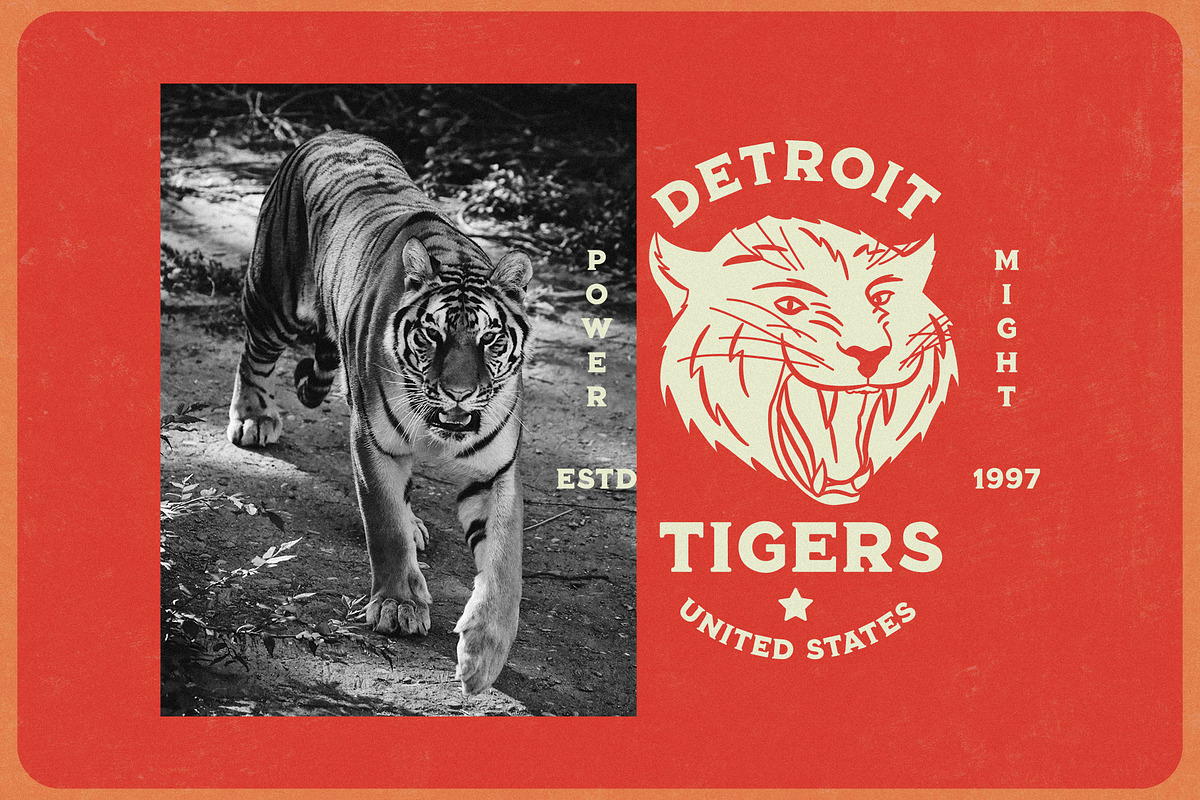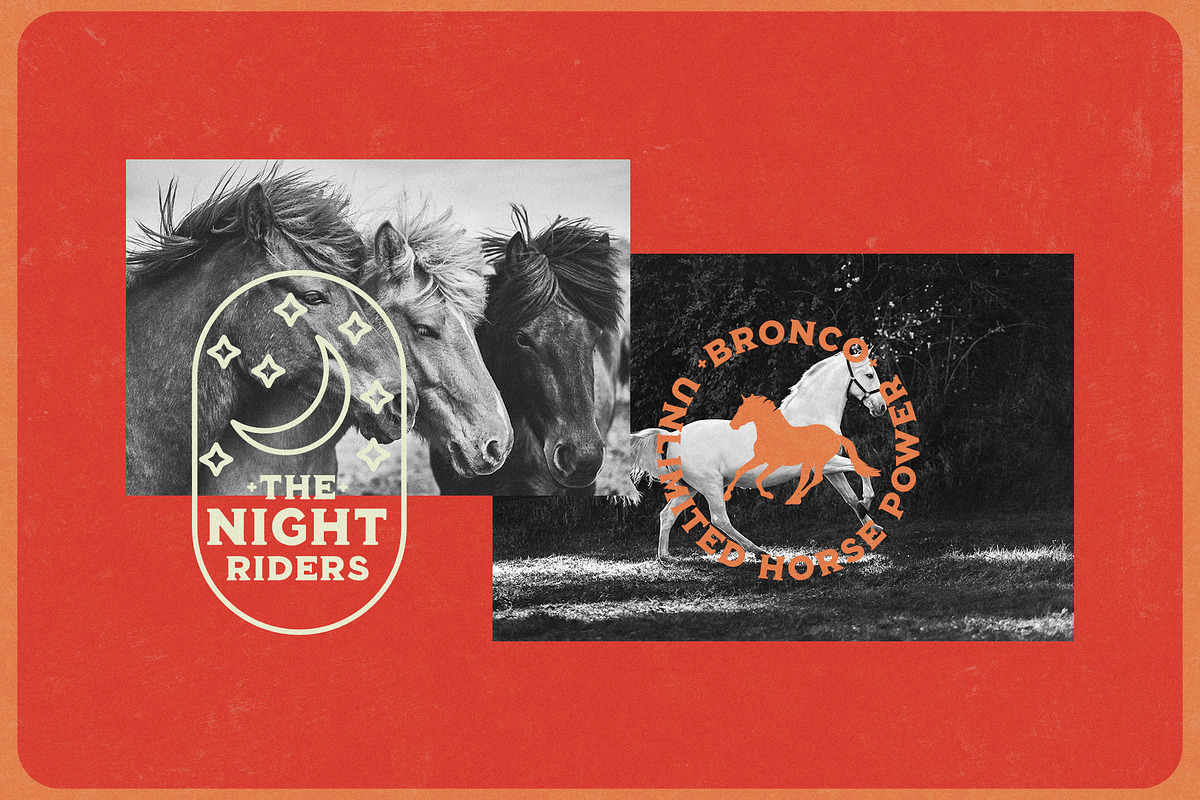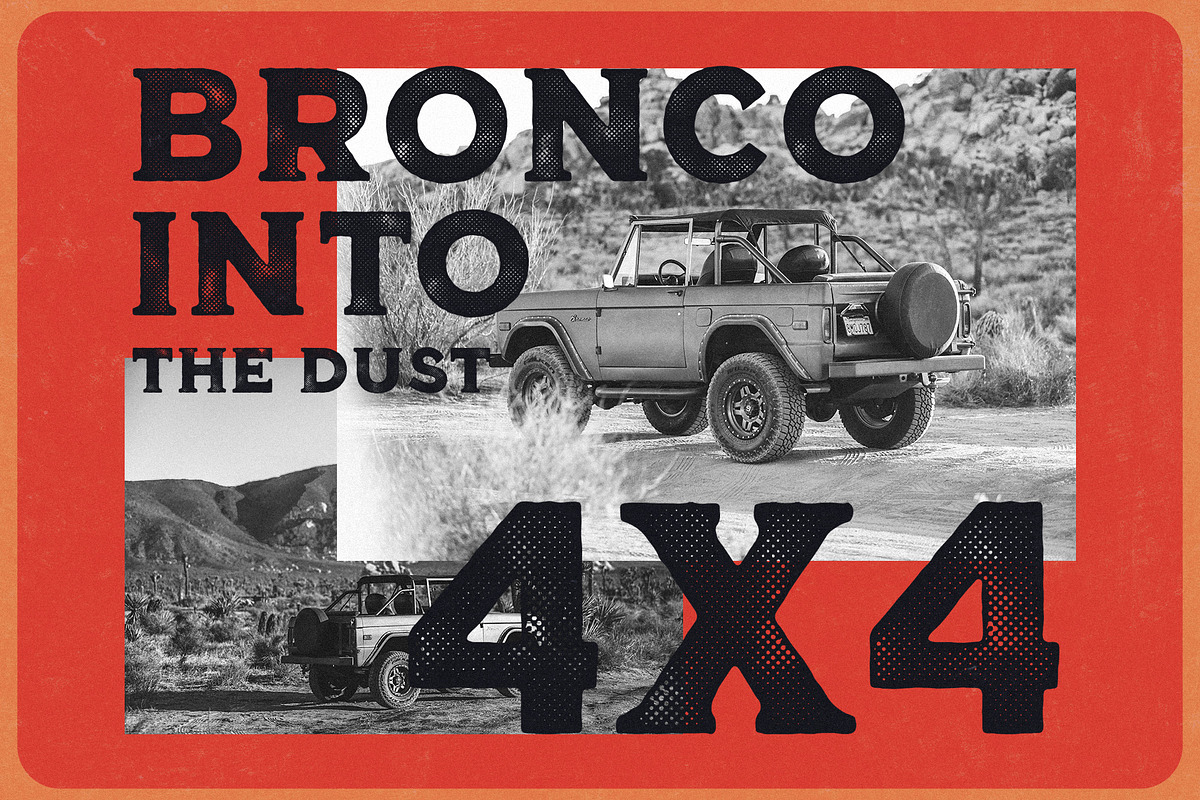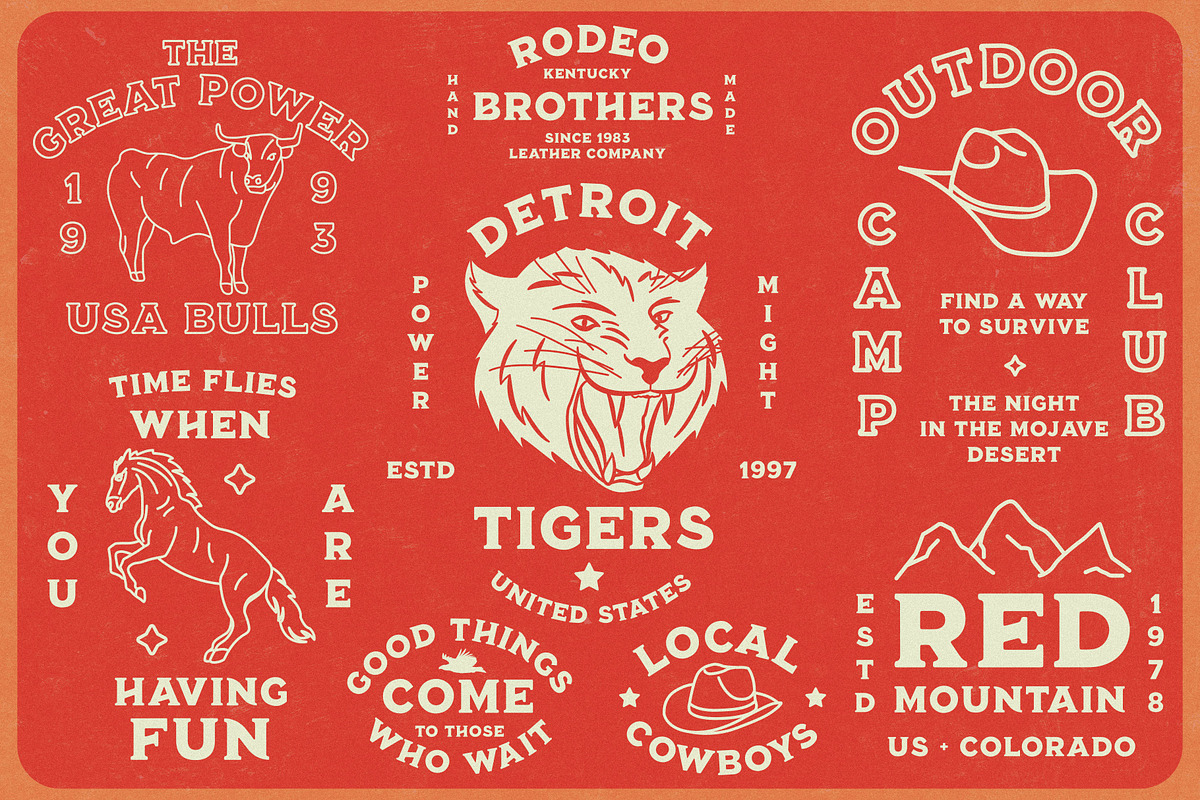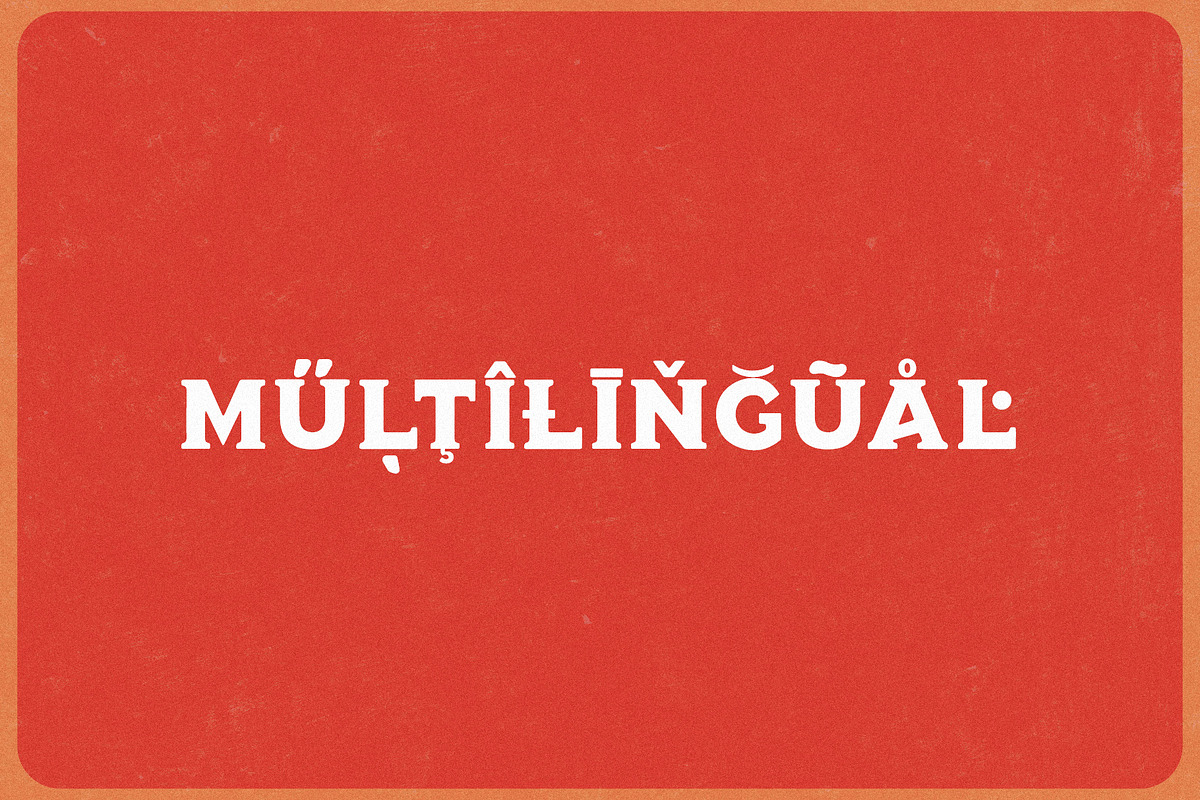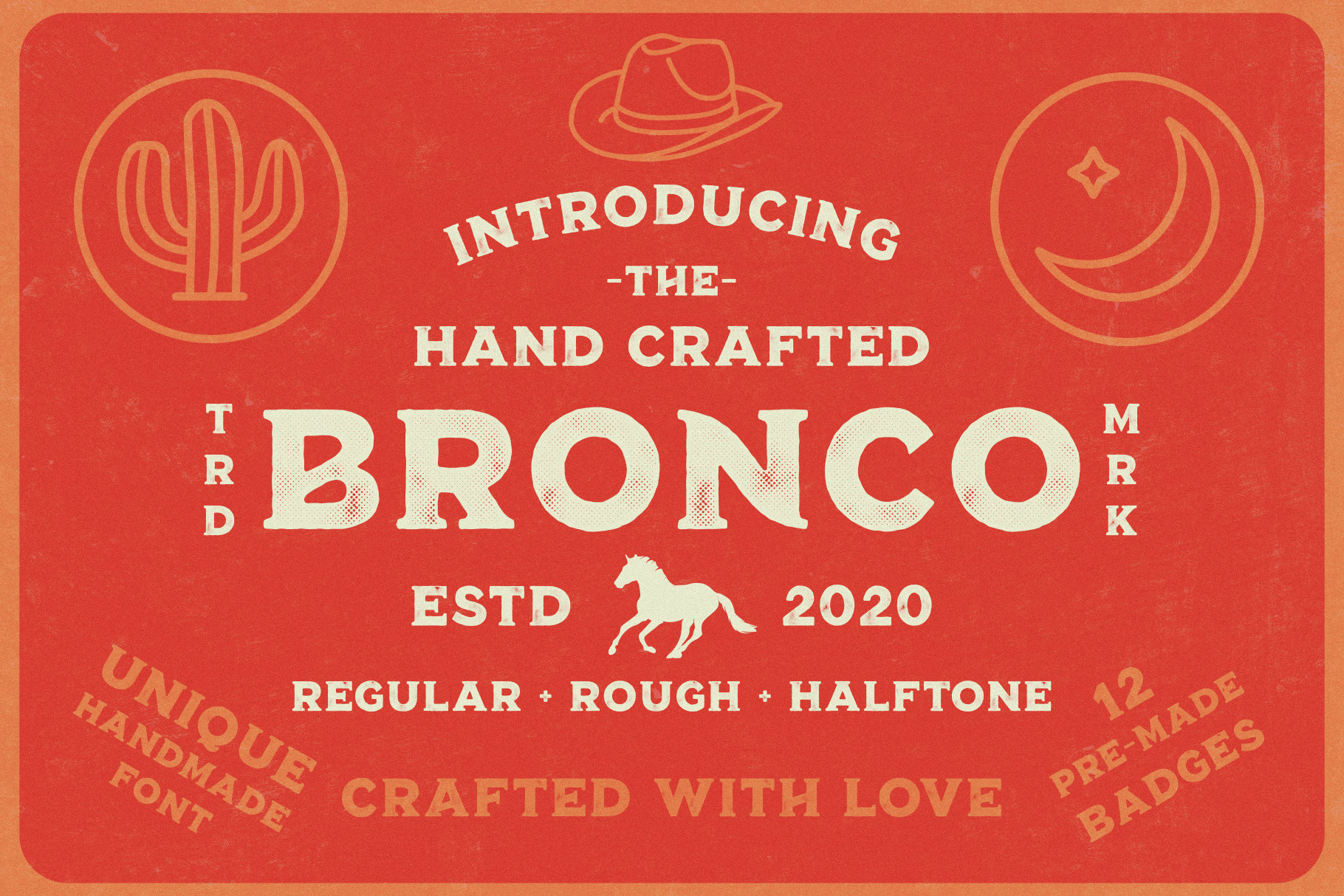
Bronco Font Collection + Extras
Bronco is a hand crafted vintage font. Bronco was inspired by wild west, deserts, mountains. Bronco is perfect for logos, t-shirts, banners, flyers, mockups etc. Also you can play with all the alternative letters (lowercase letters) for a new look.